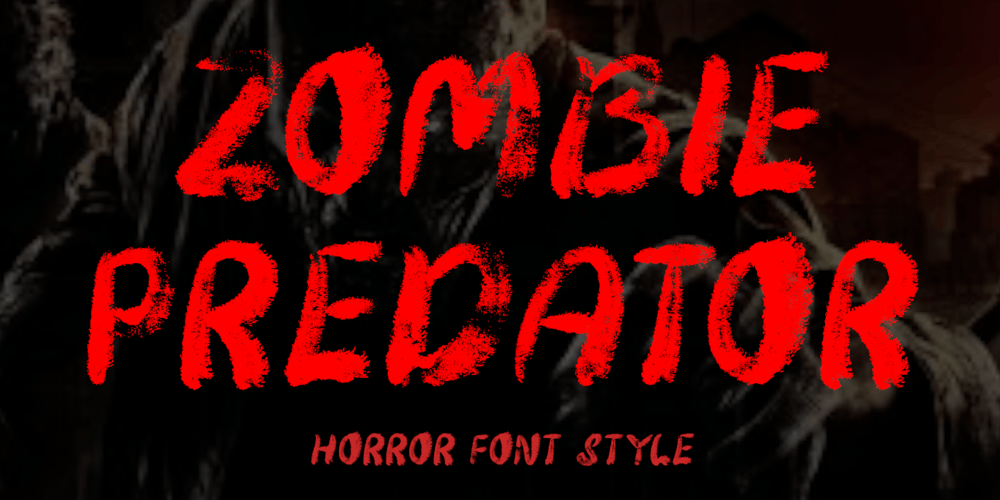
Zombie Predator
Zombie Predator font
Zombie Predator Font Family was designed by Isroni Yoga Prasetya and published by Yoga Letter. Zombie Predator contains 1 styles and family package options. “Zombie Predator” is a scary horror display font. This font is very suitable for horror movie titles, Halloween, banners, posters, stickers, branding, book titles, and more. This font is equipped with uppercase, lowercase, numerals, punctuation, and multilingual support.